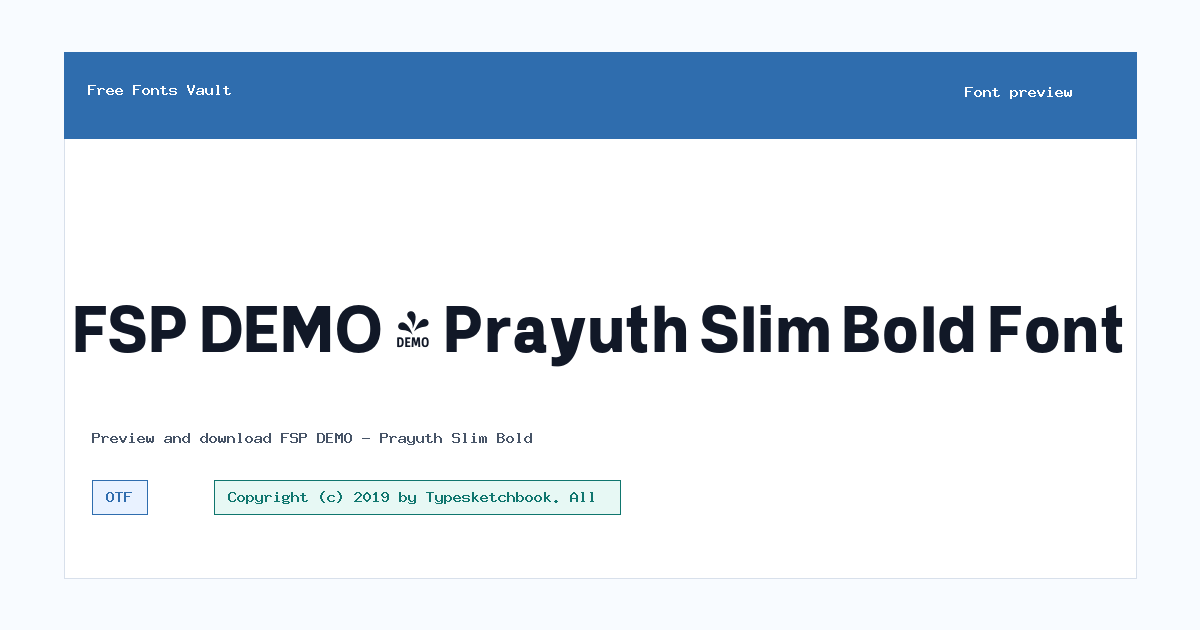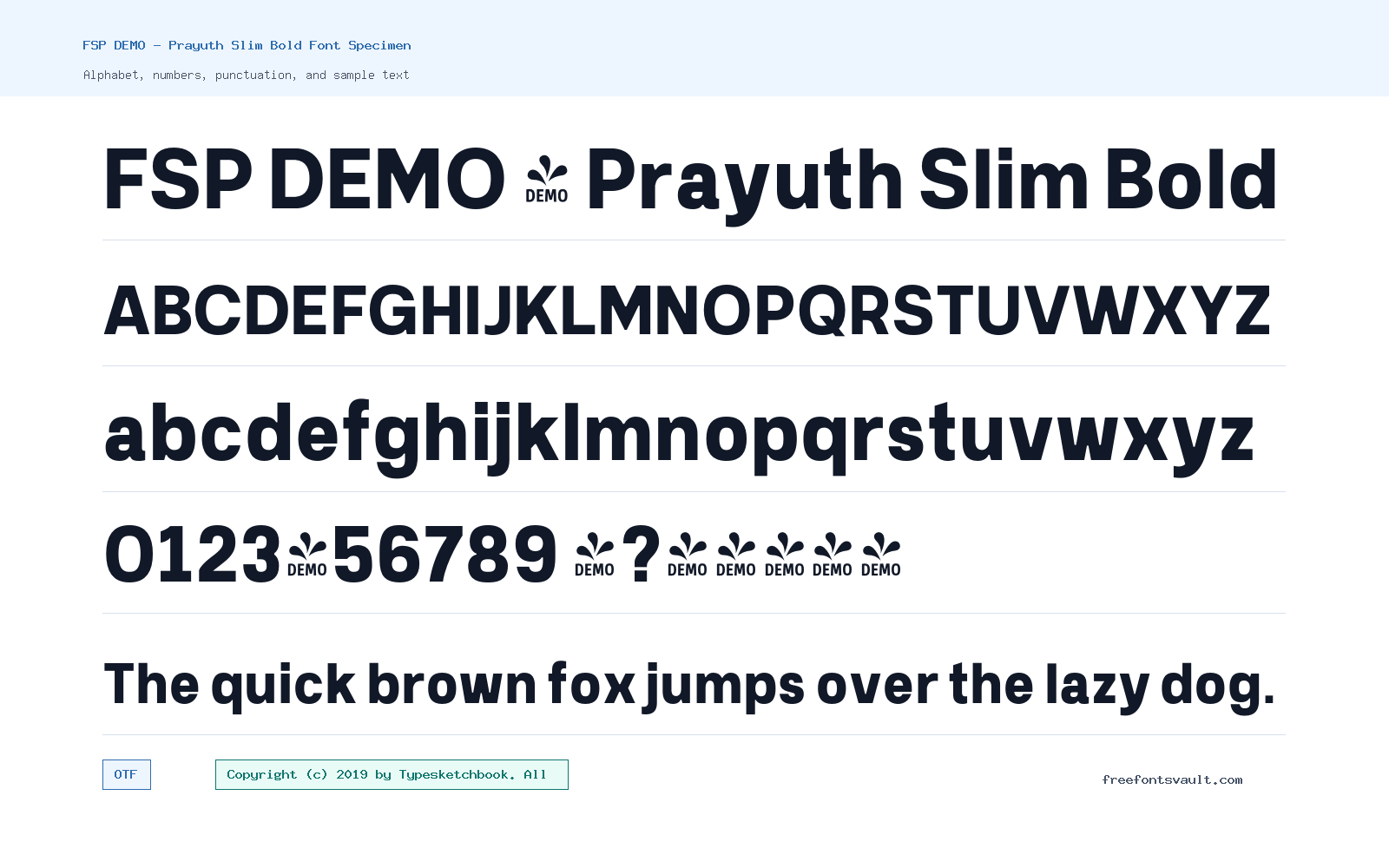
FSP DEMO - Prayuth Slim Bold
- Designer Typesketchbook
- Foundry Typesketchbook
FSP DEMO – Prayuth Slim Bold font.
Prayuth Slim Bold is a narrow, bold sans serif style from the Prayuth family by Typesketchbook. It has a clean modern shape that works best when you need strong short text without taking up too much horizontal space.
About Prayuth Slim Bold Font
FSP DEMO – Prayuth Slim Bold is an OpenType demo font file in normal style with a 700 weight. The slim width gives it a compact look, while the bold weight keeps titles and labels visible. It is a practical choice for clean headlines, magazine-style titles, tech branding drafts, social graphics, packaging mockups, and other places where a condensed sans serif can make text feel organized and direct.
Use this font for short words, names, section headers, buttons, poster lines, and preview concepts. Because the file is a demo style, test your exact text in the preview before using it in a finished design. Check spacing around narrow letters, numbers, punctuation, and mixed-case words. For long paragraphs, pair it with a more comfortable text face so the bold condensed style stays useful instead of tiring to read.
- Slim bold sans serif letterforms for compact display typography
- Headlines, titles, posters, and magazine-style layouts
- Tech branding drafts, social posts, labels, packaging mockups, and short callouts
Try the font at the final size you plan to use. Slim bold letters can look sharp in large headings, but small sizes may need extra spacing or a simpler companion font for body copy.
What kind of font is Prayuth Slim Bold?
It is a slim bold sans serif display style. It is best used for short, clean text such as headlines, labels, titles, and branding drafts.
Who made Prayuth Slim Bold?
The font is credited to Typesketchbook. Some font listings also connect Prayuth with Chatnarong Jingsuphatada.
Can I use this font for paragraph text?
It is better for display text than long reading. Use it for headings or short emphasis, then pair it with a readable regular text font for paragraphs.